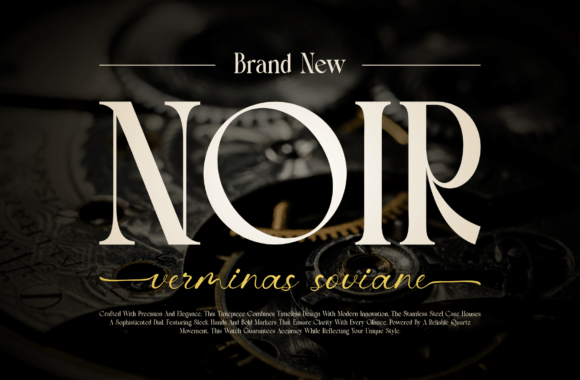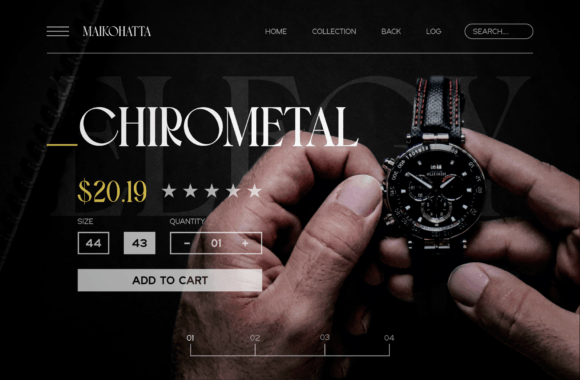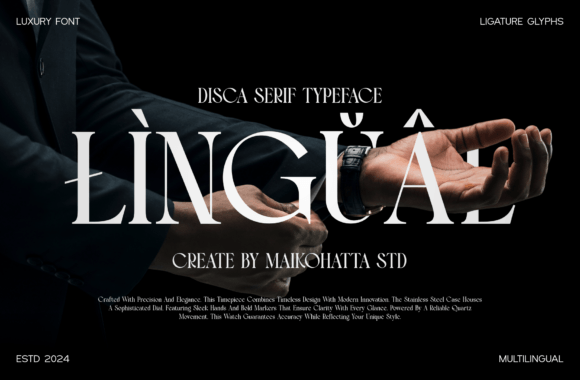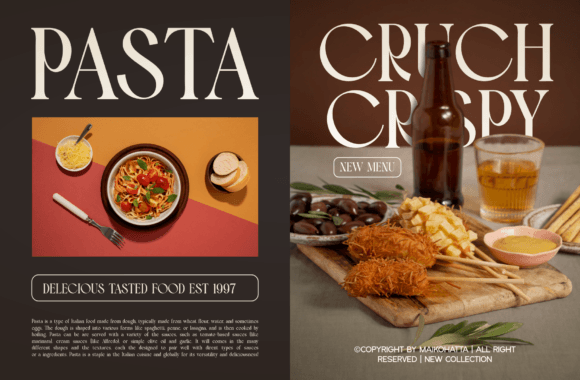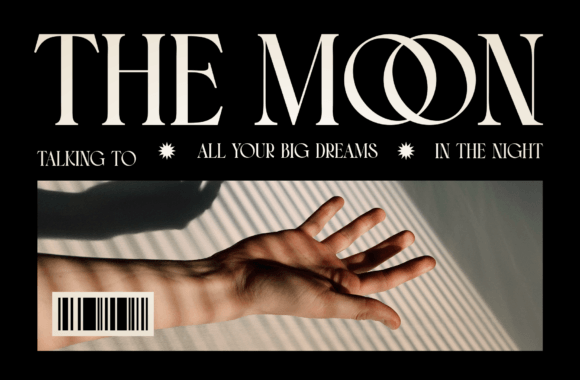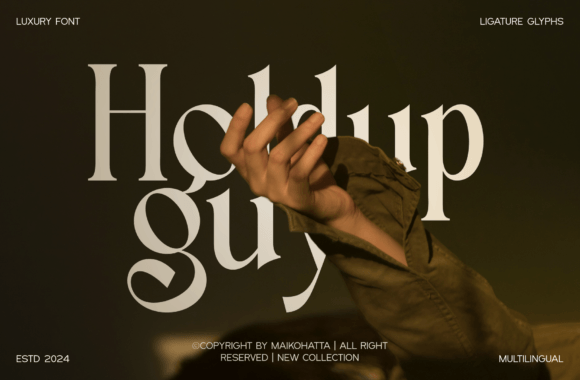
Introduction to Disca Font
Introducing our new product **Disca** – Elegant Serif Typeface This font is a type of letter that has special characteristics that create the impression of luxury, elegance, and firmness.
This font involves a series of design elements such as balanced thin and thick lines, gentle curves, and elegant and clean serifs The sharp corners and fine details of each character create a highly aesthetic impression and exude an air of elegance.